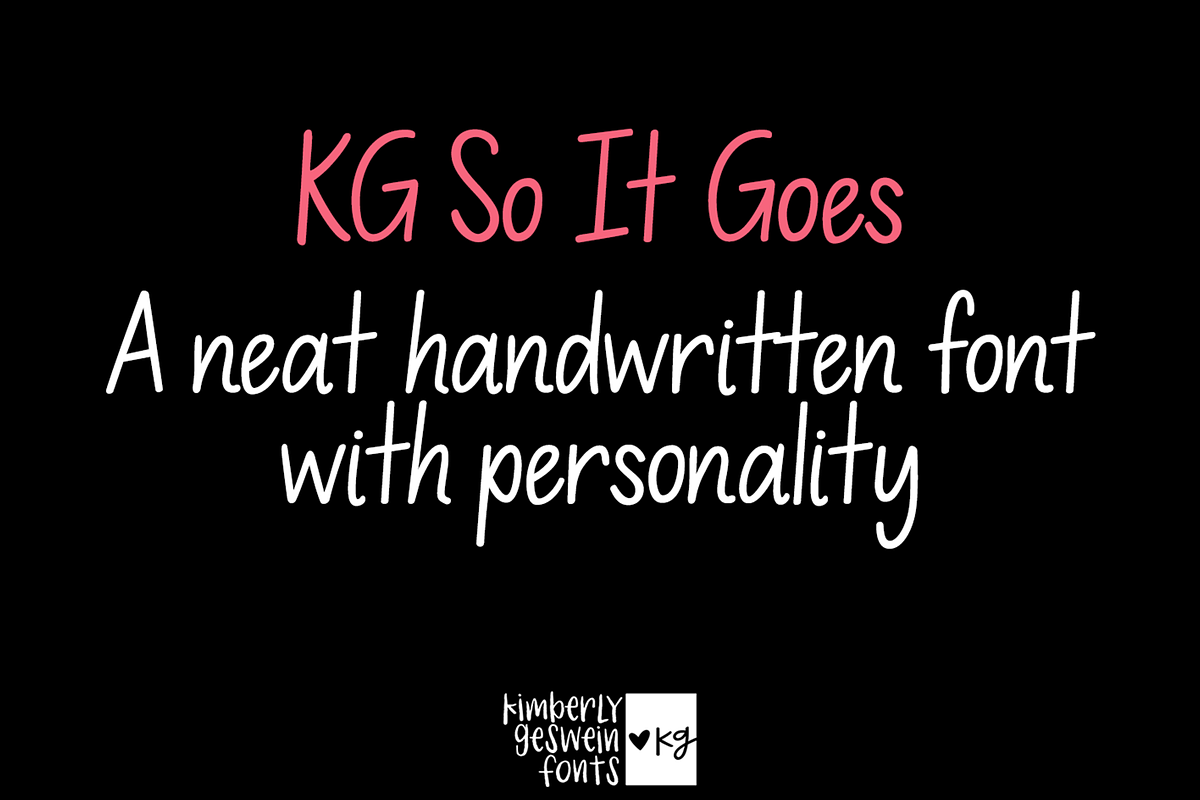
KG So It Goes Font Free Download is a clean and thoughtful handwritten typeface that brings simplicity, emotion, and authenticity to your designs. With its slightly quirky strokes and natural flow, this font is perfect for classroom materials, journals, quotes, blog graphics, branding for creatives, and heartfelt social media posts.
The casual yet polished style of KG So It Goes makes it approachable and versatile—great for both professional and personal use. It feels like a neatly written note or a page from a well-loved book, adding warmth and personality to every word.
Whether you're designing for educators, authors, or everyday creatives, this font fits beautifully into a variety of settings.